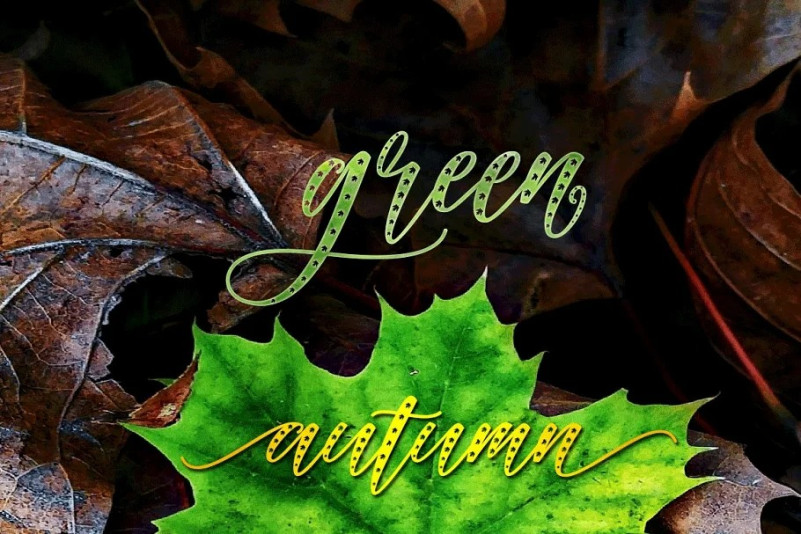
Autumn Elegant Font
Autumn Elegant Script Font is a stylish calligraphy font that features a varying baseline, smooth line, classic and interesting touch. Can be used for various purposes. such as headings, signature, logos, posters, t-shirt, signage, lable, wedding invitation, badges etc.